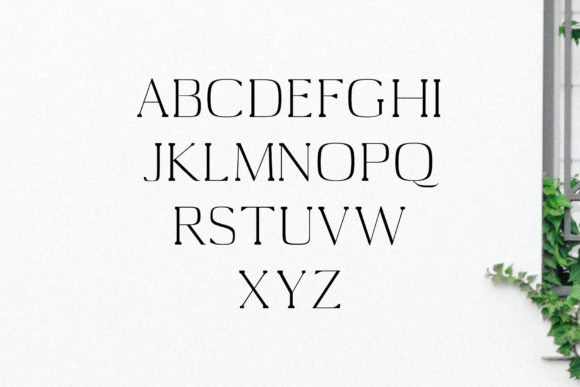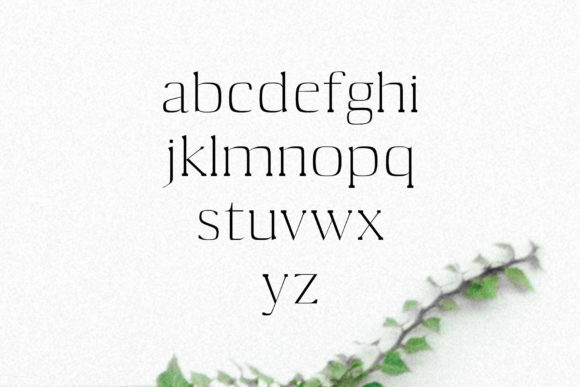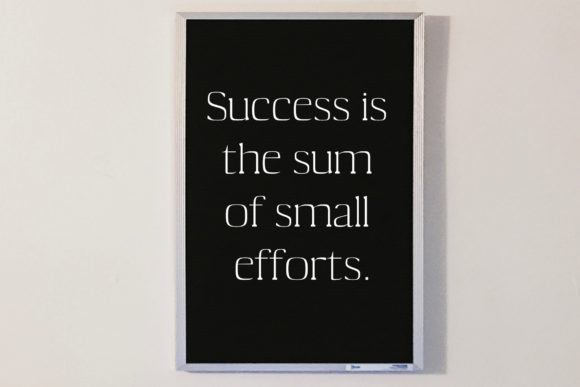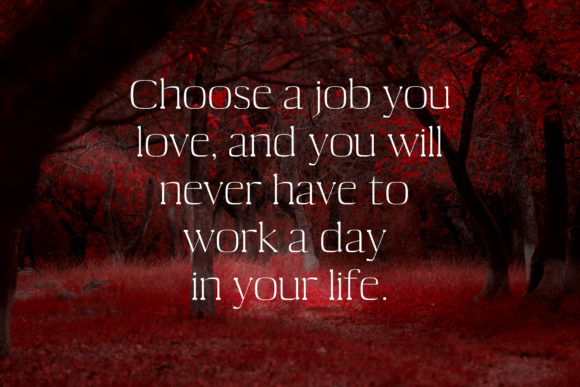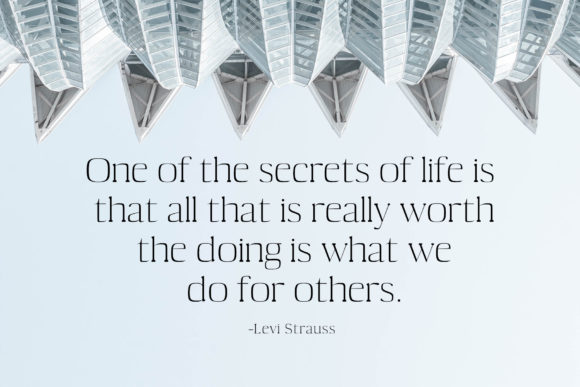
Introduction to Medric Font
As you sit at your desk, surrounded by sketches and half-finished projects, the blank page stares back at you. The cursor blinks, taunting you to begin. And then, it happens – a spark of creativity ignites, and you envision the perfect design. For designers, this moment is a precious gift, and the right tools can make all the difference. Enter the Medric Font, a stunning serif font that will elevate your next creative project to new heights.
With its elegant, tall, and thin lettered design, the Medric Font is a design resource that will make your work stand out. Whether you’re crafting beautiful wedding invitations, creating eye-catching social media posts, or simply adding a touch of sophistication to your stationery, this versatile font has got you covered. And the best part? It’s available for free download, making it an accessible high-quality design resource for designers of all levels.
Key Features of Medric Font
- High-quality font with a transparent background, perfect for creative projects and design resources.
- Features a unique and elegant design, making it suitable for a wide range of creative projects, from logos to typography-based art.
- Includes a comprehensive character set, covering a wide range of languages and alphabets.
Honest Review: Medric Font
As a designer, I’ve had the chance to work with a wide variety of fonts, and I’m excited to share my thoughts on the Medric Font. This font has been a game-changer for me, especially when working on creative projects that require a high-quality, elegant look.
Here are some of the things that I love about the Medric Font:
- ✨ Beautifully crafted characters with a transparent background, making it perfect for creating beautiful, high-quality designs.
- ✨ A wide range of language support, making it a great resource for designers working on projects that require multiple languages.
However, I do have to mention a few limitations:
- ⚠️ Some of the characters may not render perfectly on lower-resolution screens, which can be a issue for designers working on web projects.
Overall, I’m really impressed with the Medric Font and would highly recommend it to any designer looking for a high-quality, elegant font for their creative project.
Medric Font is commonly used in creative projects such as logos, brochures, business cards, and social media graphics. Its high-quality design and transparent background make it perfect for creating professional-looking designs. Whether you’re a designer or a non-designer, Medric Font is a valuable design resource that can help you create stunning visuals.
Q: Does the Medric Font support transparent backgrounds?
Yes, the Medric Font has a transparent background, making it ideal for projects that require a clear or semi-transparent text overlay. This feature allows you to achieve a clean and modern design aesthetic.